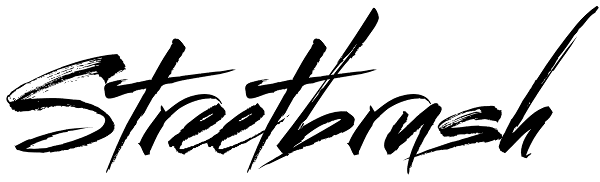
Streetbrush
When I was in high school, I would wreck my notebooks with multiple layers of graffiti tags, which would start in the margins, and then creep in to cover the entire page. I developed a sensibility towards a very fast, expressive use of my hand...